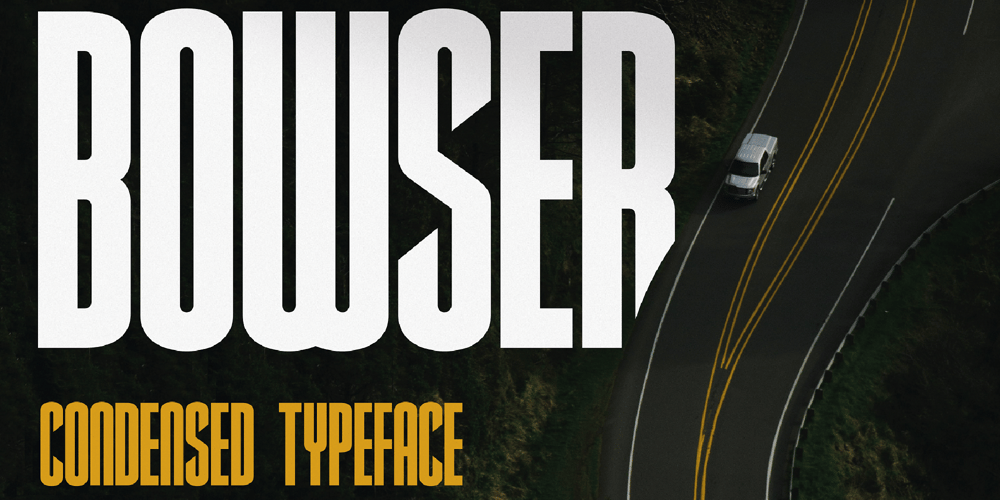
Bowser
Bowser font
Bowser Font Family was designed by Igor Ovsyannykov and published by Hipfonts. Bowser contains 1 styles and family package options. Bowser is a modern condensed typeface created for bold titles and headlines. It comes with upper and lowercase letters that are distinctive yet legible. Bowser works great for posters, branding, social media, headlines, magazines, apparel, large print formats, and more. Make your imagination come true today with Bowser!